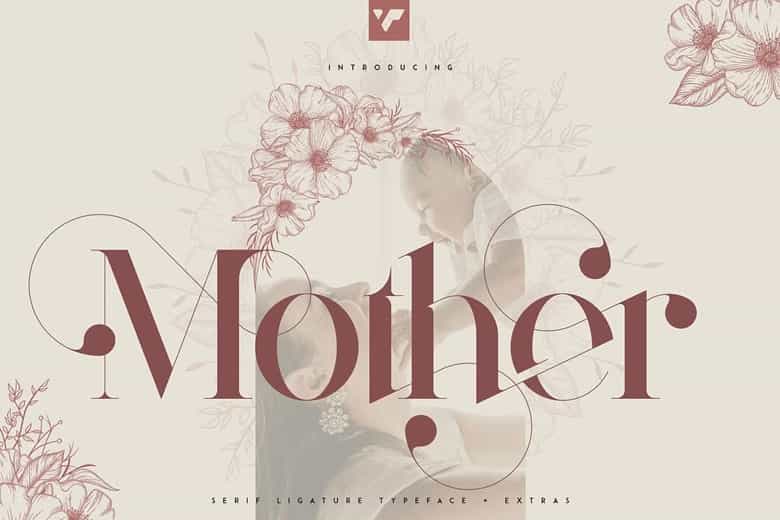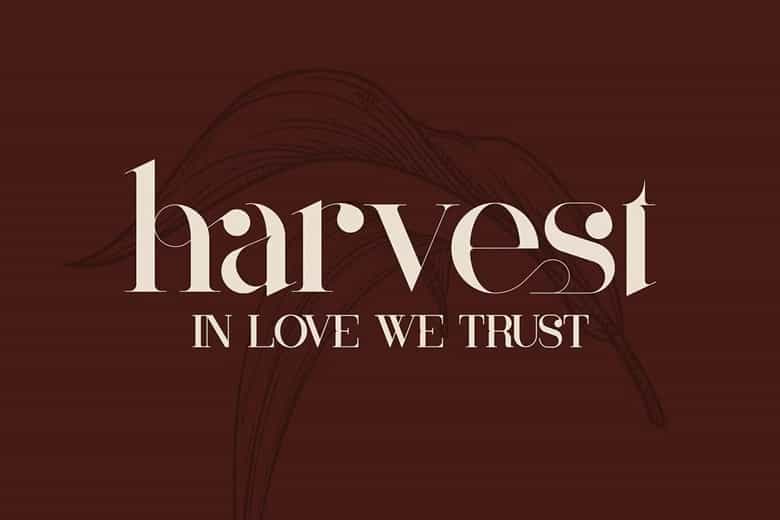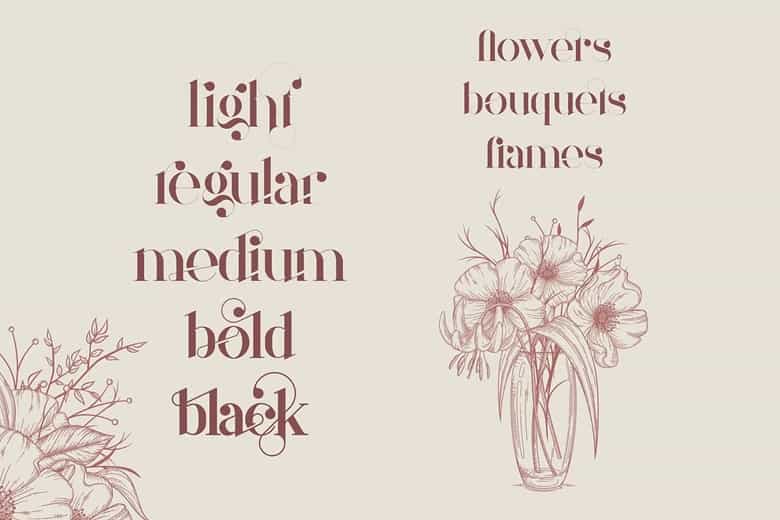
Discover Mother Font, part of the Serif collection—a versatile and unique font perfect for adding a personal touch to your projects. Download it for free and enjoy crafting designs with style, from invitations to social media posts. This font is available exclusively for personal use, giving you the freedom to create without limits. Unlock your creativity with Mother Font today!
Mother is named after all the mothers and children who don’t make it out alive. This is a beautiful yet delicate typeface and comes with 5 typefaces packed with ligature characters, alternates and multilingual options to bring the magic to your next project. He added and frames, bouquets and floral elements. Extremely functional fonts which looks good in both large and small types sizes.